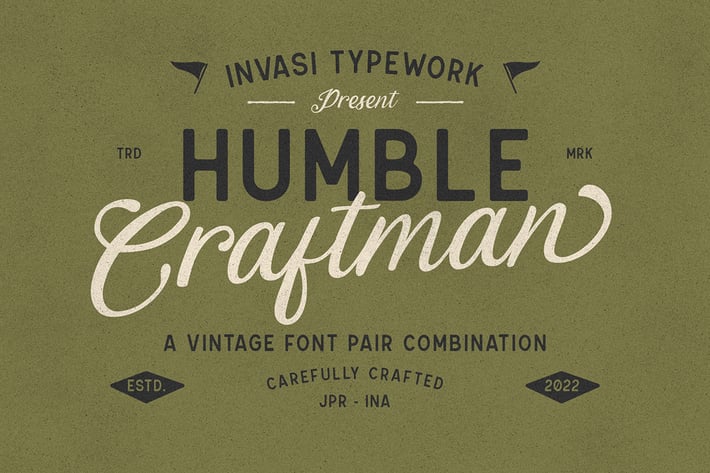
Humble Craftman - Vintage Font Duo
Humble Craftman is a super versatile font that pairs script and sans typefaces. Each letter features a swashy touch, making Drippy more remarkable in the industry. This script font blends classic historical ambiance with pop modern retro vibes. Be the best version of your vision statement, and stand out from the crowd.
A perfect pair for your logotype, branding project, label design, sign painting, and a very wide of advertising needs.
- Uppercase & Lowercase
- Alternates and Ligatures